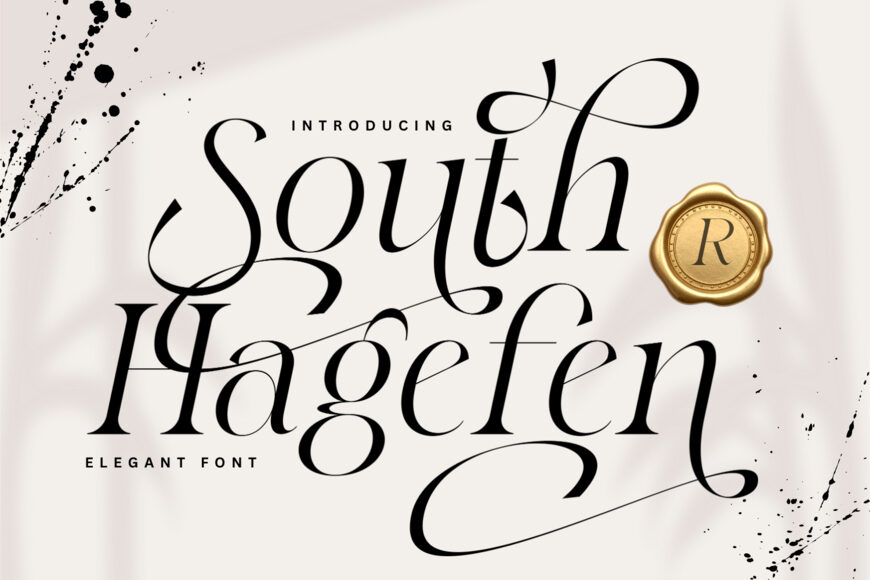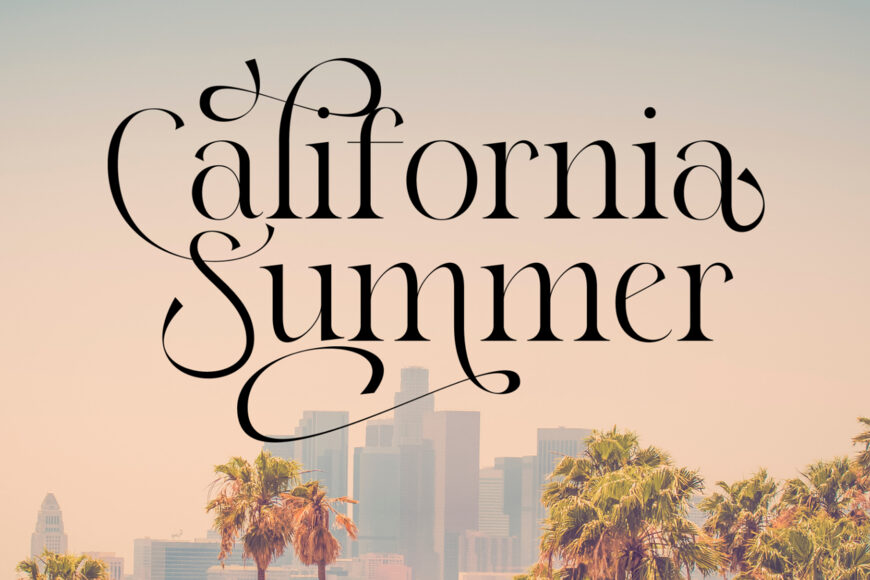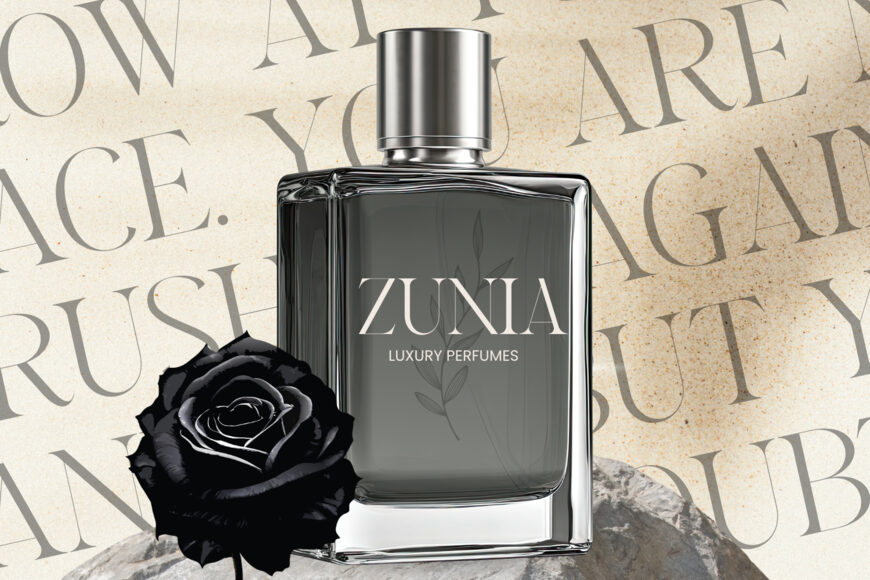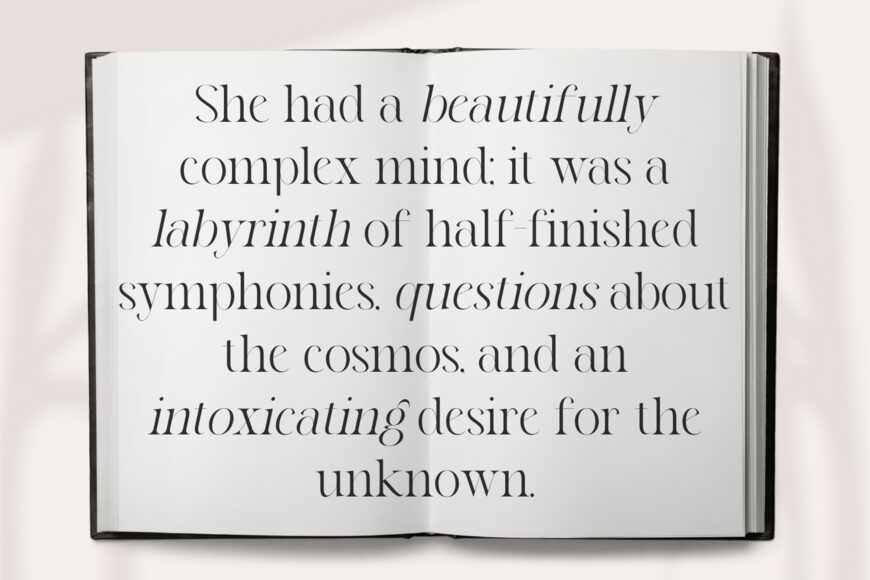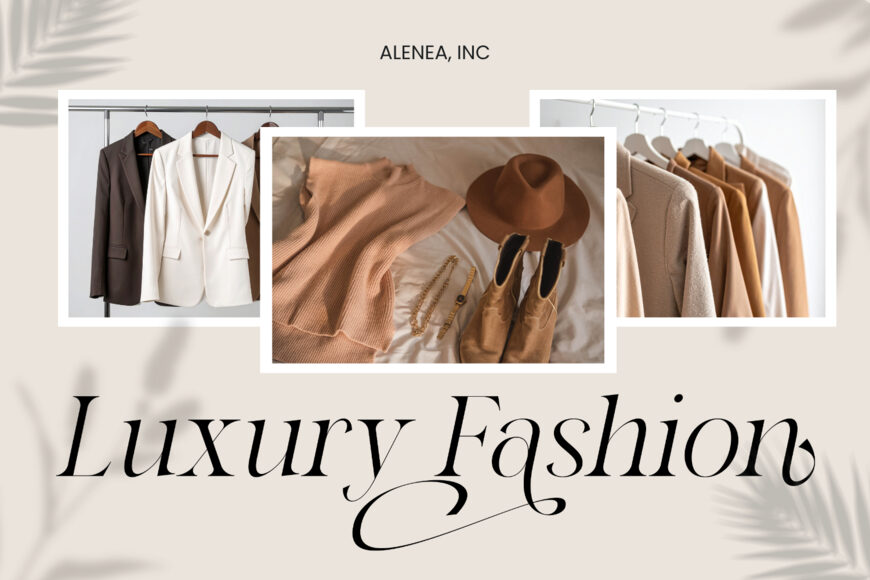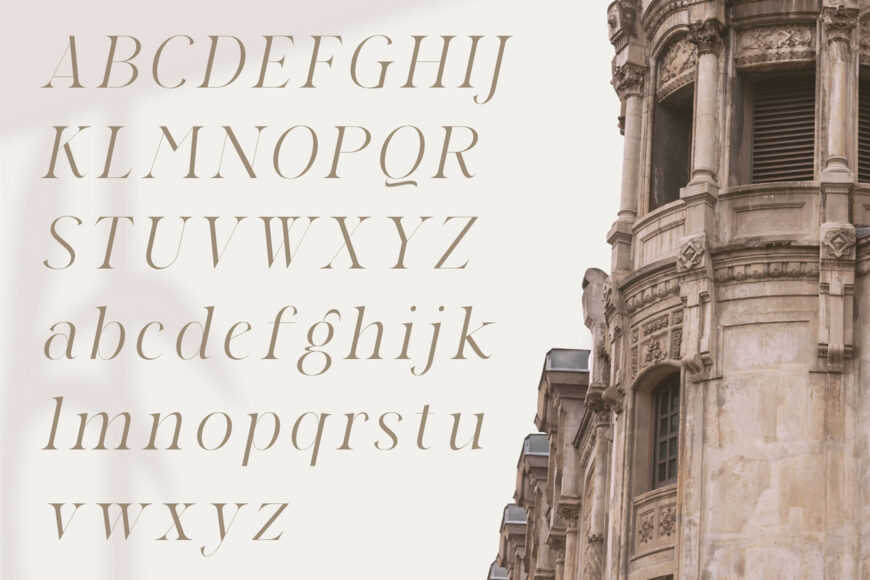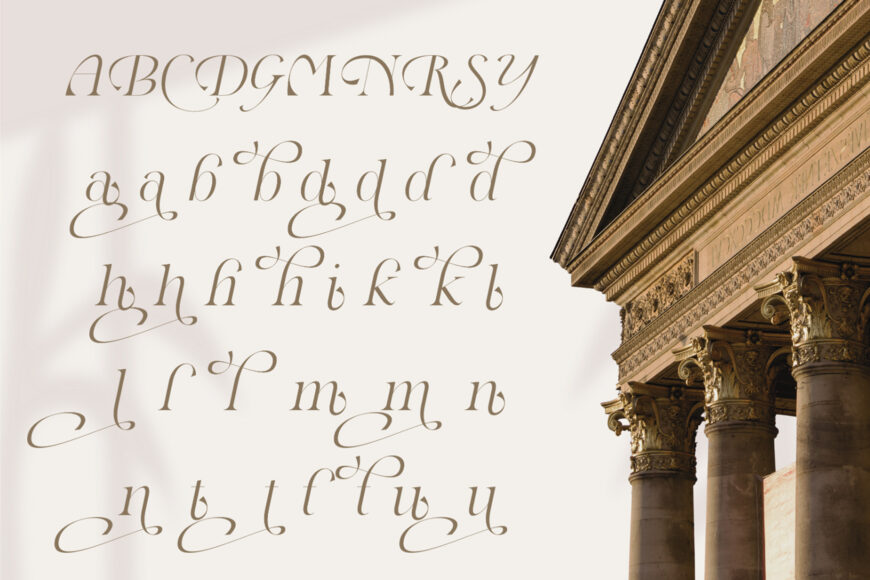
South Hagefen Font
Introducing South Hagefen, an elegant and sophisticated serif font designed to bring a touch of classic luxury to your creative projects. A harmonious blend of clean Didone aesthetics and free-flowing calligraphic strokes, South Hagefen is the perfect choice for high-end branding, luxurious invitations, and fashion editorial designs.
With inspiration rooted in the elegance of classical architecture and copperplate calligraphy, this font offers a captivating duality: the structured simplicity of a high-contrast serif and the dramatic flair of intricate ornamental swashes.